25+ Best Free and Premium 4th of July Independence Day Fonts
The best Independence Day fonts are those provoking the most patriotic feel. While some of them do their share by borrowing patterns from the USA flag, some others rely on a solid old-school structure to set the mood. Appealing to the national pride and loyalty that run through your veins comes easy to these bold fonts.
You’ve just got to lean into their expressive outline and see how they capture eyes in a political manner. You know, because they can be playful and friendly for posters and ads, or even go down a different road and lend a solid, strong character to games, military projects, etc.
Best 4th of July Independence Day Fonts
Let us find you the best match for your next project from the list below with all the striking Independence Day fonts it contains. Considering all the free and premium items available, there’s a pretty good chance you’ll be leaving with more than one.
America otf color
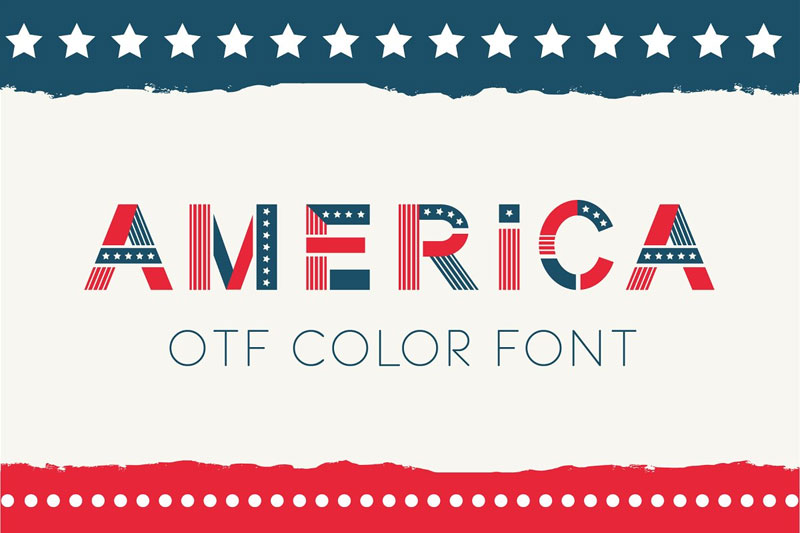
America otf color font is one of the most diverse and happy fonts of Independence Day. This font is great for designing posters and flyers for this glorious day, despite the blue and red stripes that symbolize the American flag.
Stars And Stripes
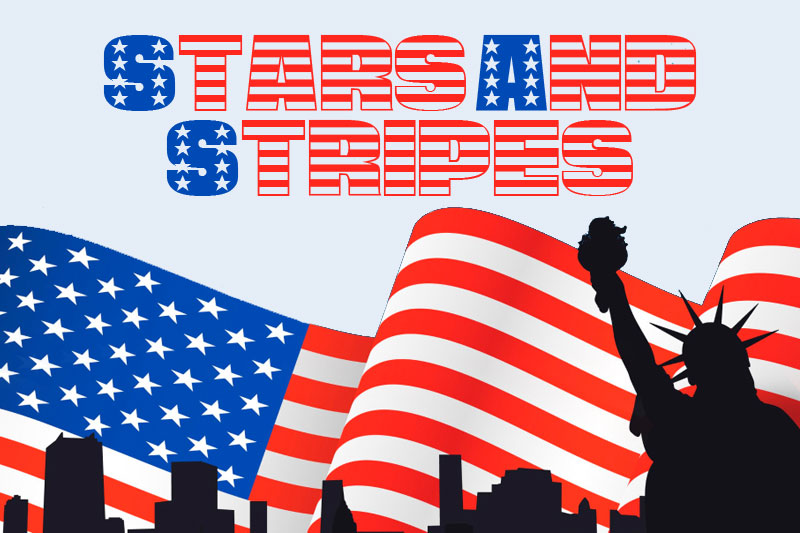
Stars And Stripes is a different style of patriotic font that holds caps with letters with the background of the stars and otherwise, there are narrow horizontal stripes. This 4th of July font is suitable for designing posters, flyers, notebooks, and social network posts.
Milestone Script
Milestone Script font with lettering and baseball-style can become one of the main elements of your poster. For the Independence Day celebrations, according to the following retro font, various other designs can be started.
USStarsNStripes
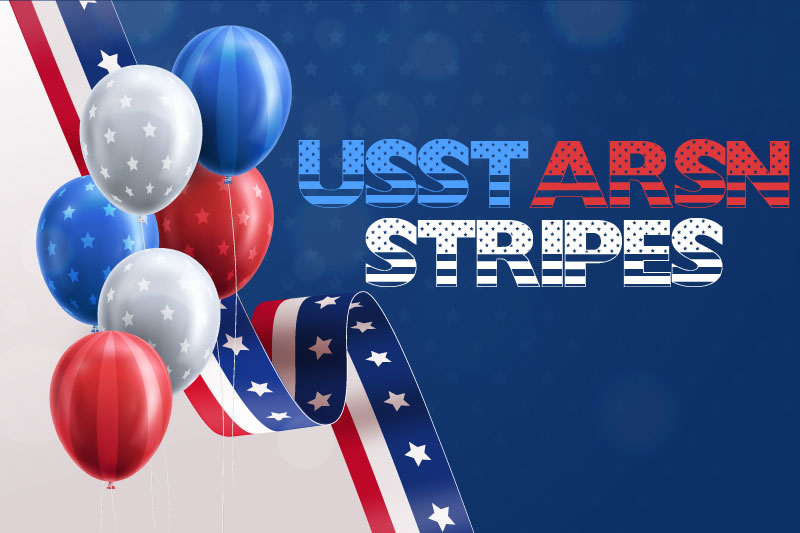
USStarsNStripes font was created by Character. This wide and bold font displays the American flag well. The lower half of the characters are horizontal stripes and the upper half are stars that symbolize the United States. Great for Independence Day flyer design.
America the
“America the” has a slab and bold style. This font is suitable for official ceremonies, elections, propaganda slogans, and of course writing Mubarak Independence Day, and everyone can use it in the simplest possible way.
LMS Star Spangled
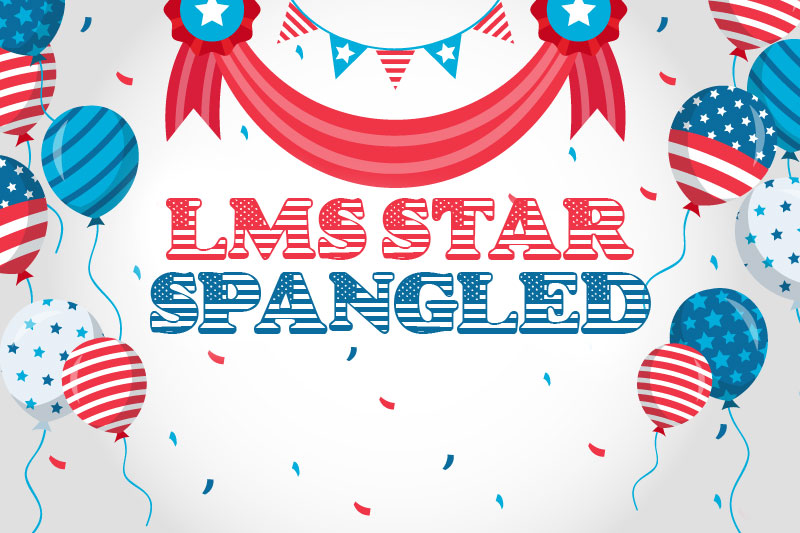
LMS Star Spangled Font was designed by London’s Letters. This bold and patriotic font has 64 characters. This 4th of July font is the best option to have a prominent and attractive design for independence seekers on the 4th of July.
Hudson NY
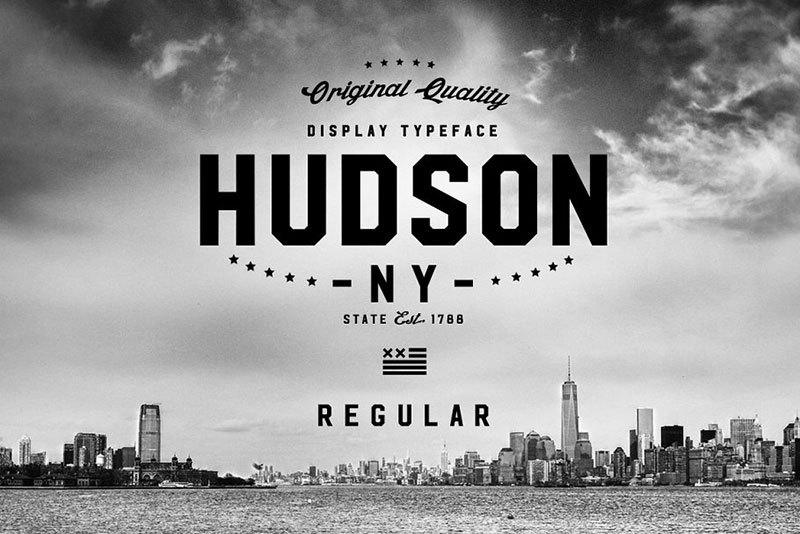
Hudson NY is a college font and all-caps. This font is suitable for writing titles and main titles of the website, posters, flyers, and many designs that you need for the 4th of July.
2Peas 4th of July
2Peas 4th of July Font is one of the happiest fonts in the Independence Day collection. This font with beautiful stars for the 4th night of July next to the fireworks becomes the best and most creative designs
UNITED STARS STRIPES COLOR
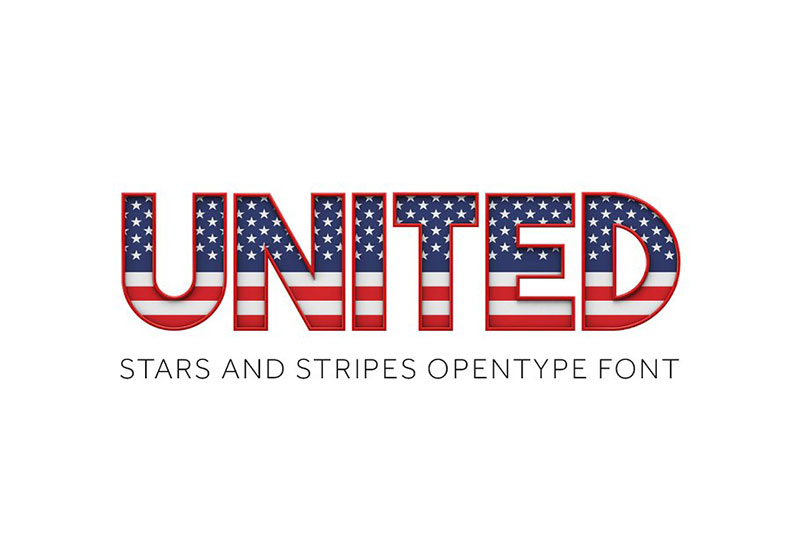
UNITED STARS STRIPES COLOR font reflects the dignity and pride of the United States. This independence day font unites with the background of the American flag and is great for beautiful text on white flags, billboards, and posters.
Stars & Stripes
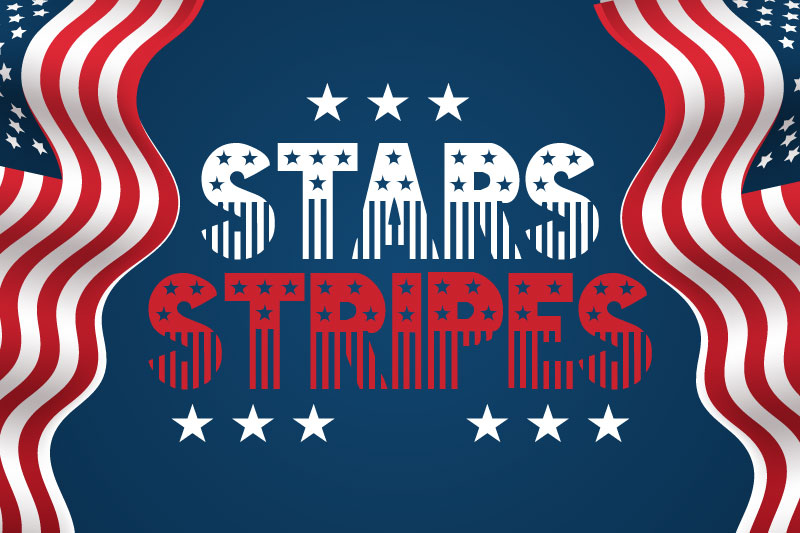
Stars & Stripes font is one of the decorative fonts for the big day of independence. Narrow vertical stripes on a black background with white stars in posters and flyers look great. For holidays, it is one of the best fonts you can open an account on.
Patriot Font Family
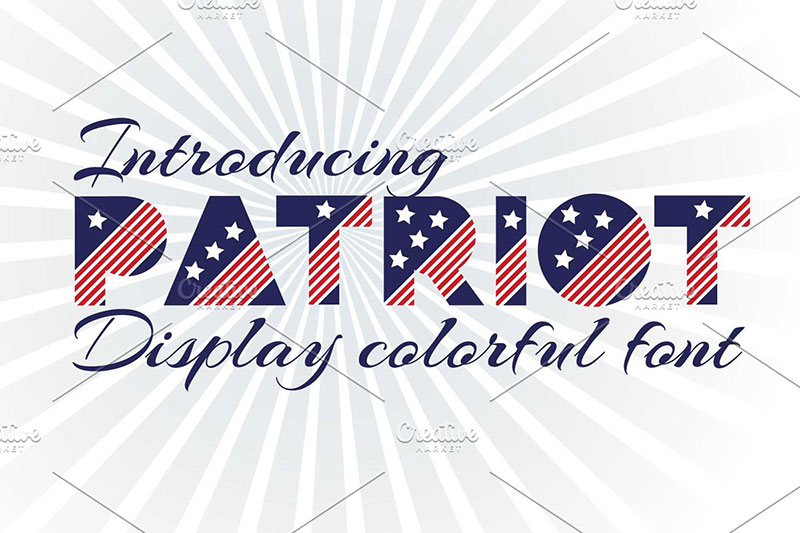
Patriot font family The American flag is marked with red horizontal stripes and 50 stars, but in this font the stripes are oblique and each character has several stars. The geometric style of this font is great for branding and logo design in addition to preparing posters.
BodieMF Flag
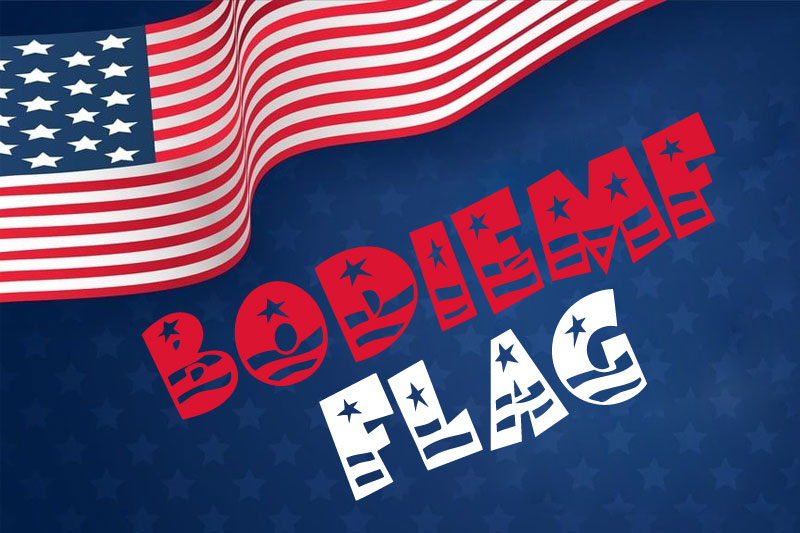
BodieMF Flag font was designed by Rick Mueller. This patriotic font is designed in a comic and animated format. Each character is playful, which is a great choice for design in comic books, T-shirts, and fancy invitation cards.
PATRIOT
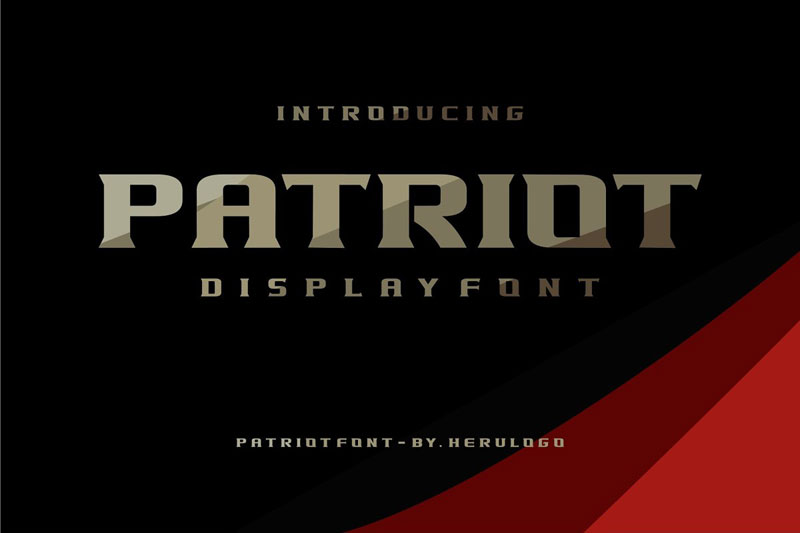
PATRIOT is a sharp and bold font. This font is similar to superhero fonts. If we look at this font in this regard, the Independence Day poster is a kind of day for the heroes and can be the best day of the year.
Pentagon
The Pentagon font was designed by House of Lime. With this Western theme font, you can celebrate not only in America but also in Mexico and prepare flags and flyers for your parties.
Homeplate
This vintage font with Western-style and by presenting two fonts is one of the best fonts in this collection. You can design flags, posters, and flyers in any city in the United States. This font can help your design process.
Patriot Font by James Fordyce
The Patriot font has condensed lines that make the stripes of the American flag diagonal rather than horizontal. This font is suitable for official ceremonies, election days, city councils, and many political events.
Conclusion
Independence Day is one of the most memorable days for the American people. This day full of joy and fireworks should be celebrated with the best posters and decorations. The collection that was introduced to you above is one of the best in the 4th of July fonts.